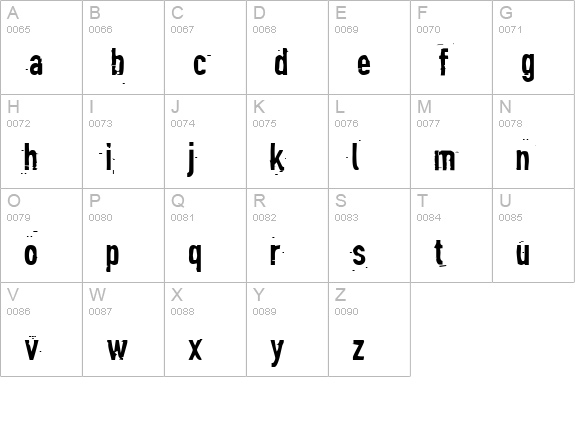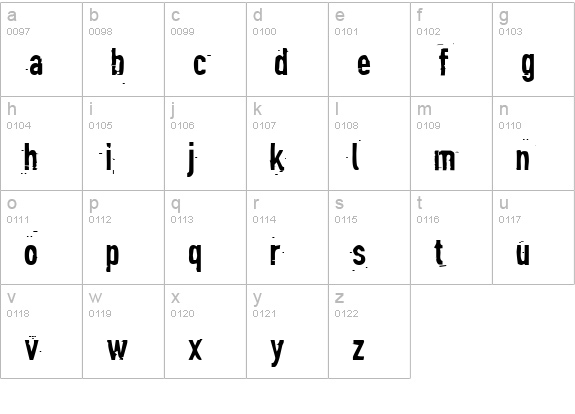
Introducing Blind font, a visually striking typeface designed to captivate and engage. This unique font features bold, modern letterforms that make a statement in any design project. With its clean lines and contemporary look, Blind font is perfect for headlines, logos, posters, and more. Best of all, Blind font is completely free to download at FontsMarket.com. Whether you're a designer looking to add a fresh touch to your work or a creative individual in need of a unique font for personal projects, Blind font is the perfect choice. Don't miss out on the opportunity to enhance your designs with this eye-catching typeface. Download Blind font today and unleash your creativity!